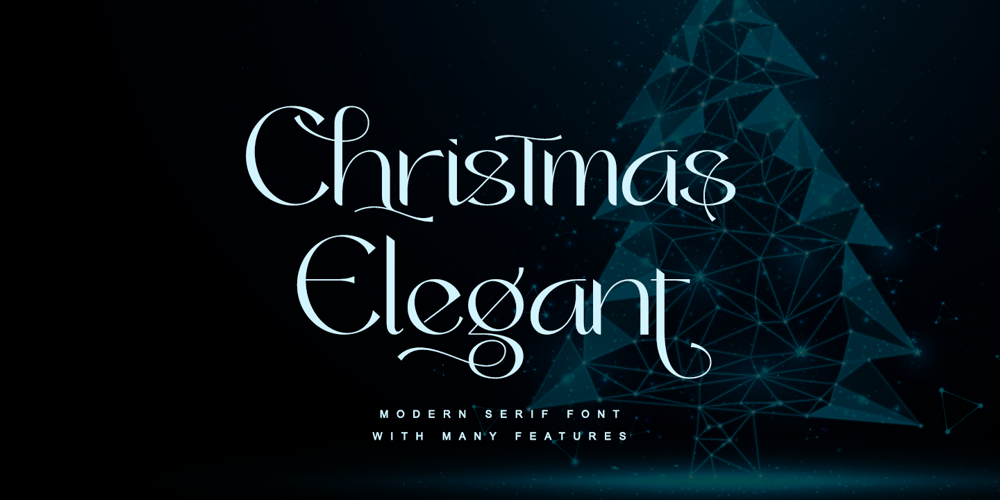
Christmas Elegant
Christmas Elegant font
Christmas Elegant Font Family was designed by Thomas Aradea and published by Letterara. Christmas Elegant contains 2 styles and family package options. Christmas Elegant is a modern and classic serif typeface with a unique style and modern look. this font is suitable for many projects, for modern or even retro vintage design, branding, crafting, sticker, sublimation, wedding invitation, fashion, advertising, vintage mood boards, logotype, packaging, titles, editorial design, and many more. Fall in love with its incredibly stylish and glam vibe and use it to create spectacular designs! This font is PUA encoded which means you can access all of the glyphs.